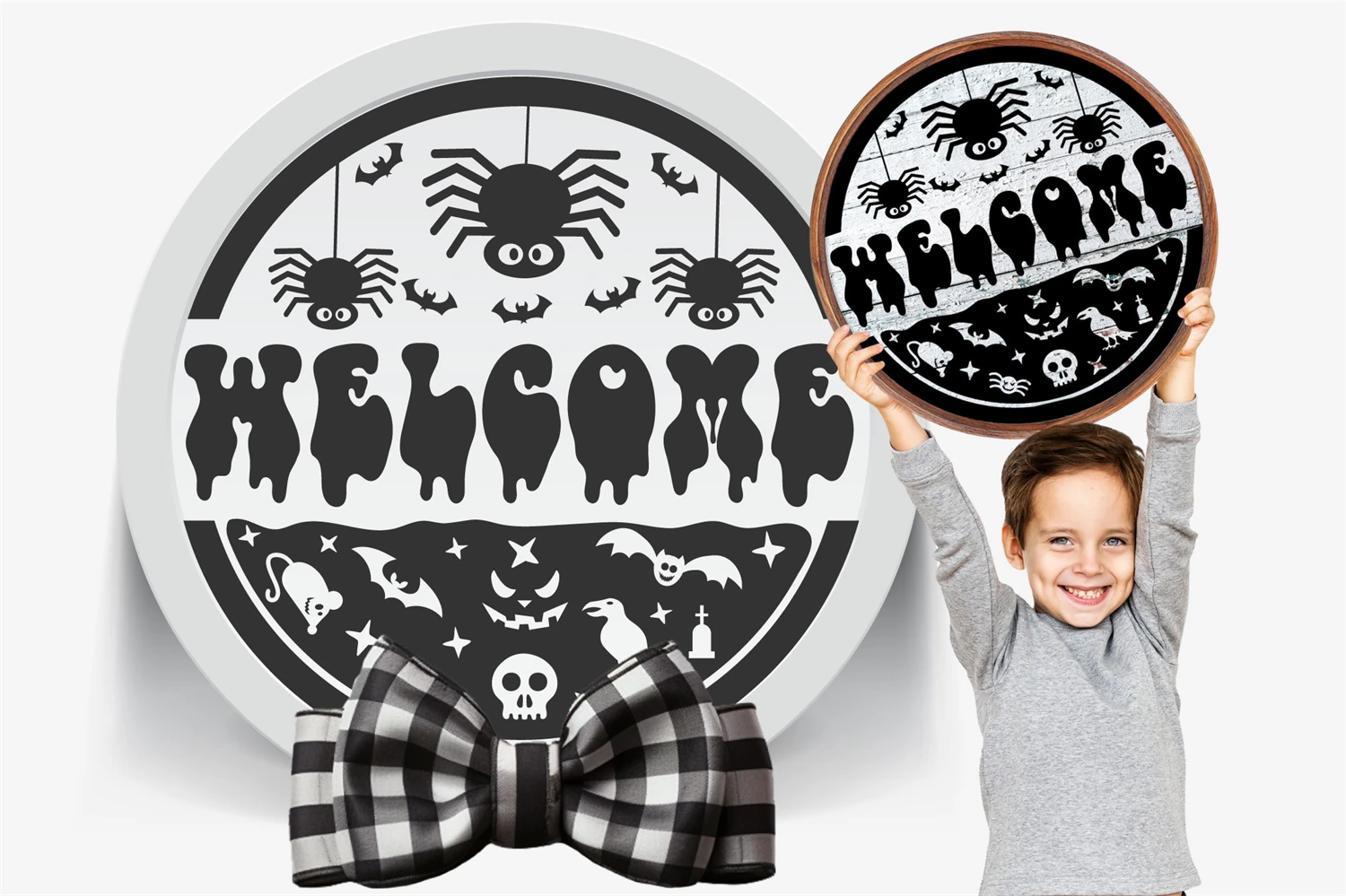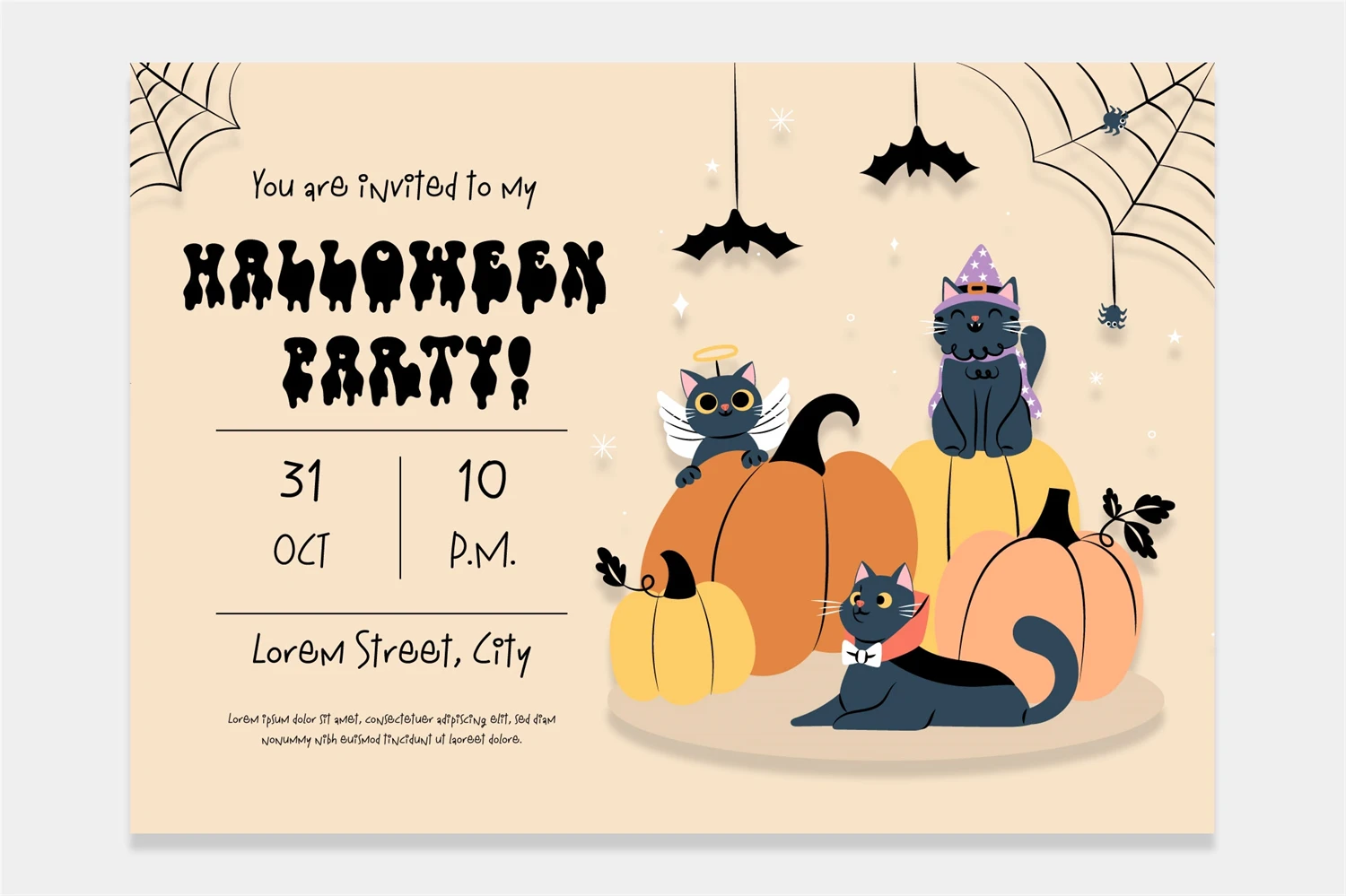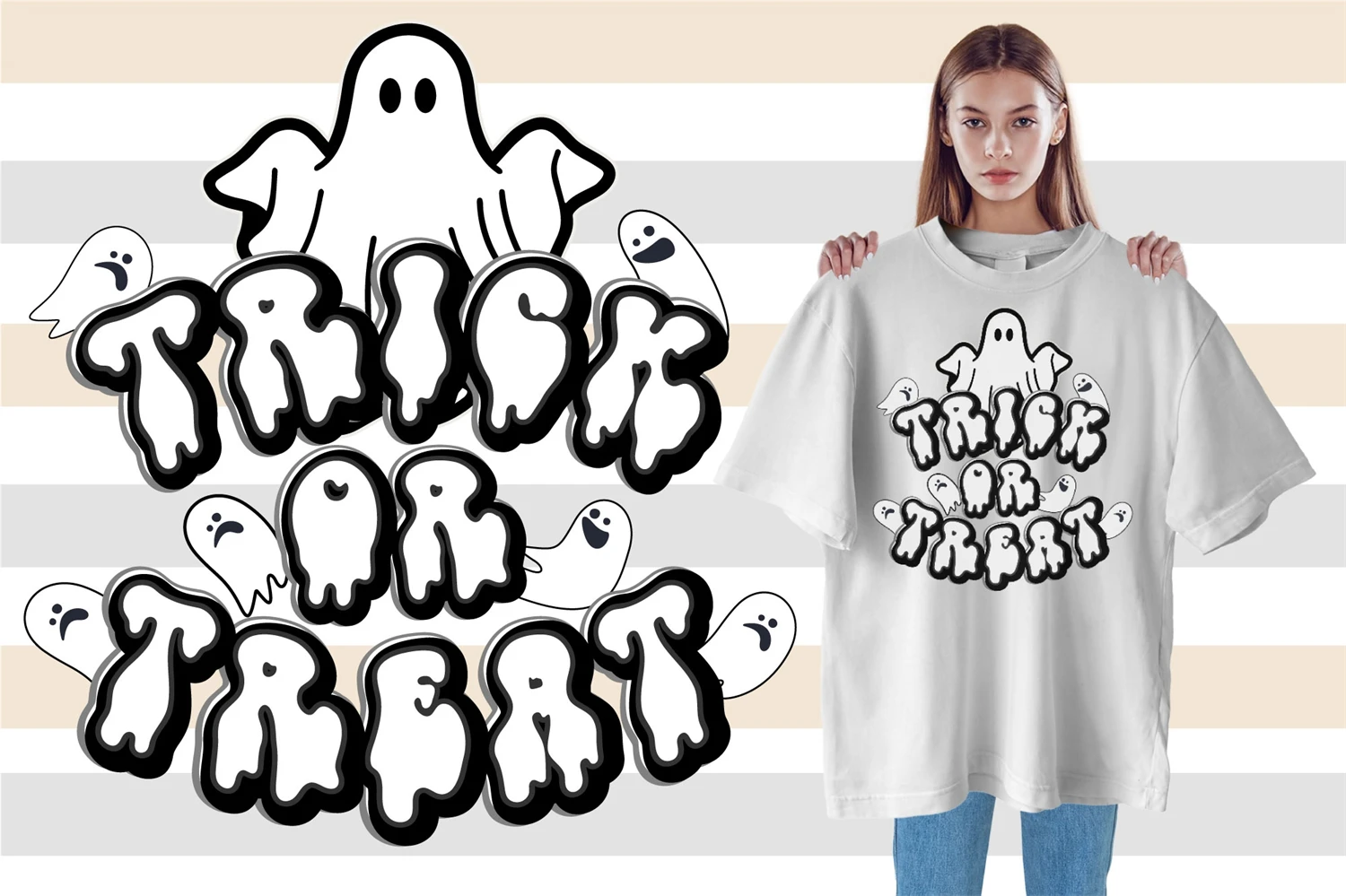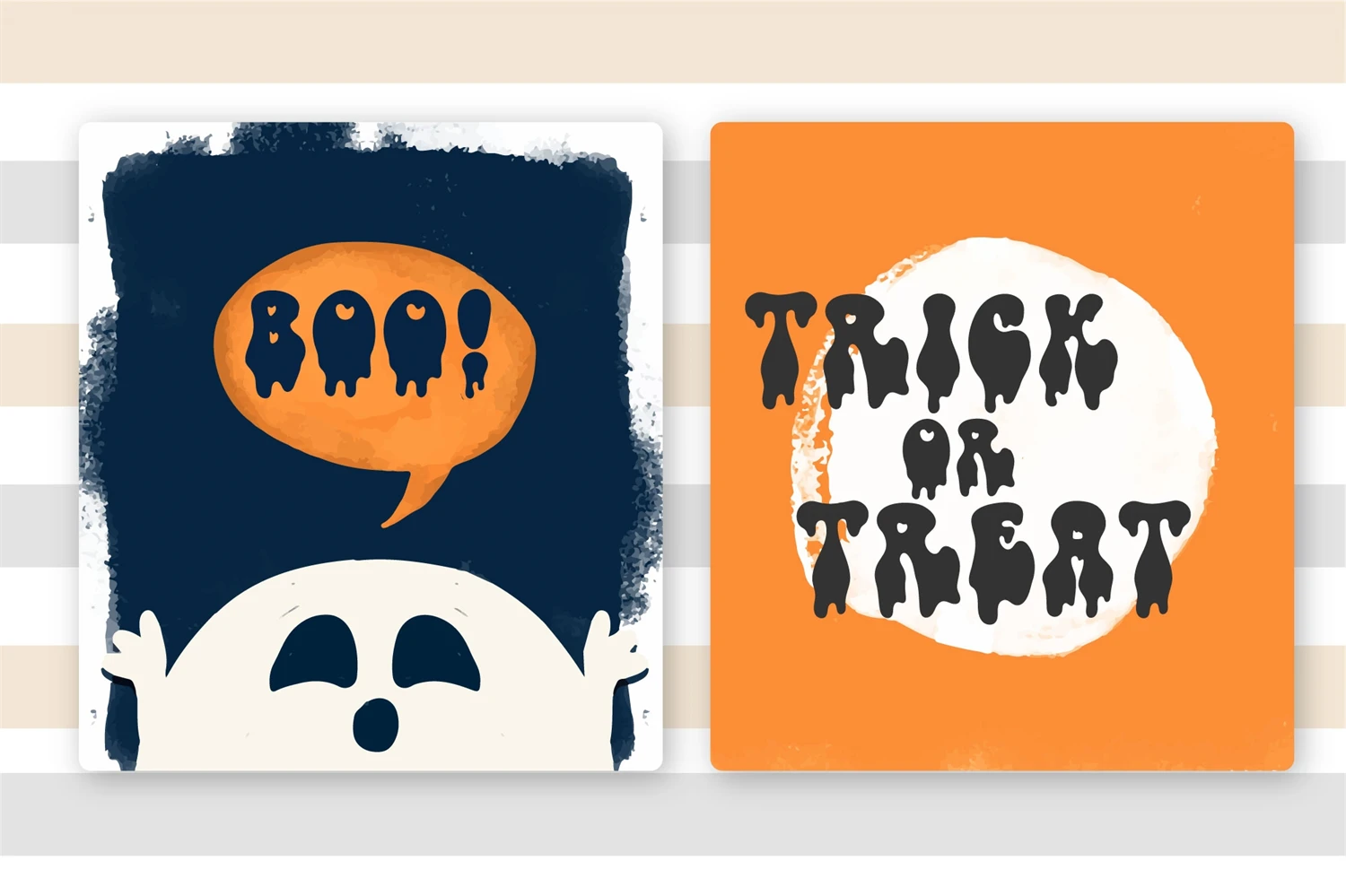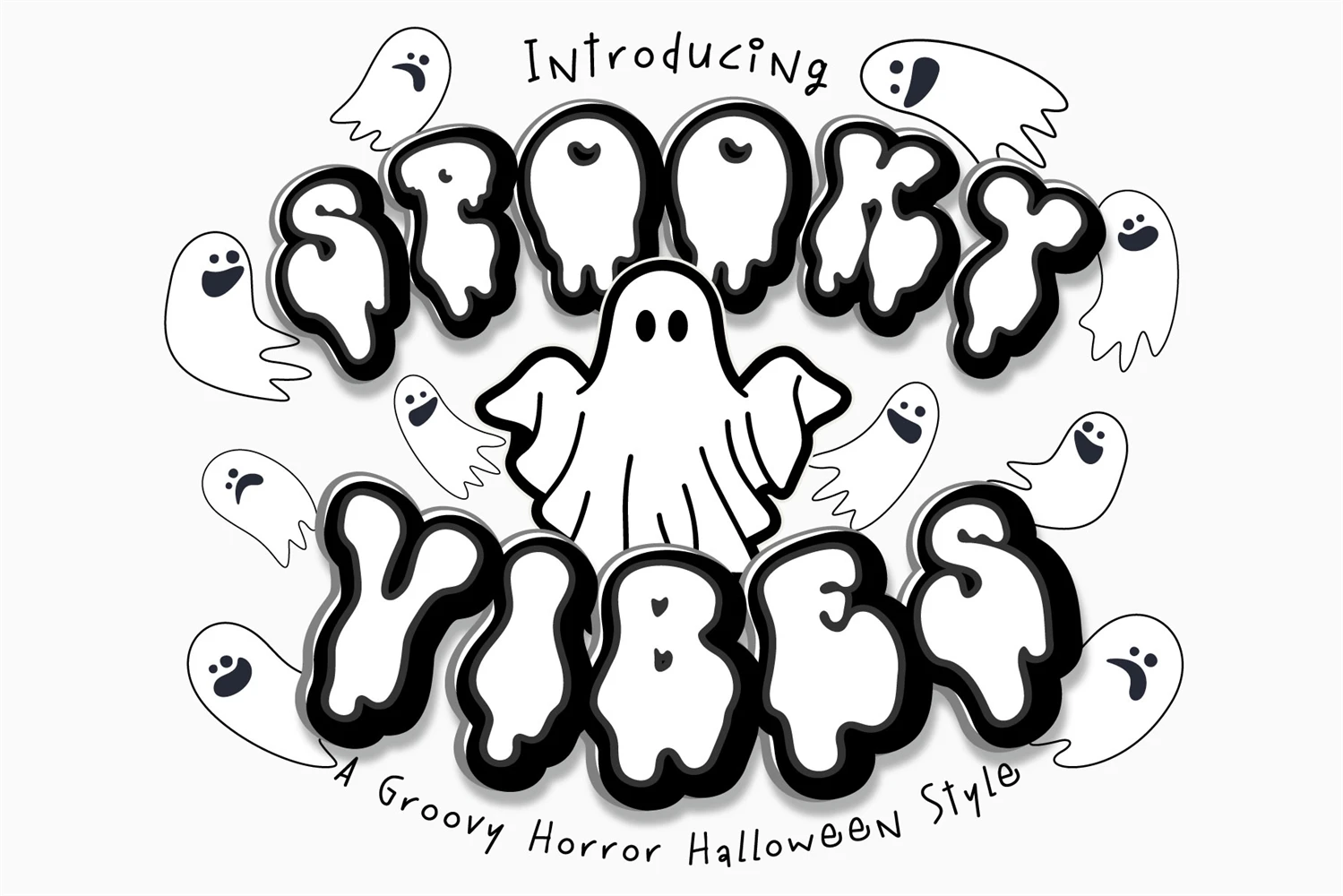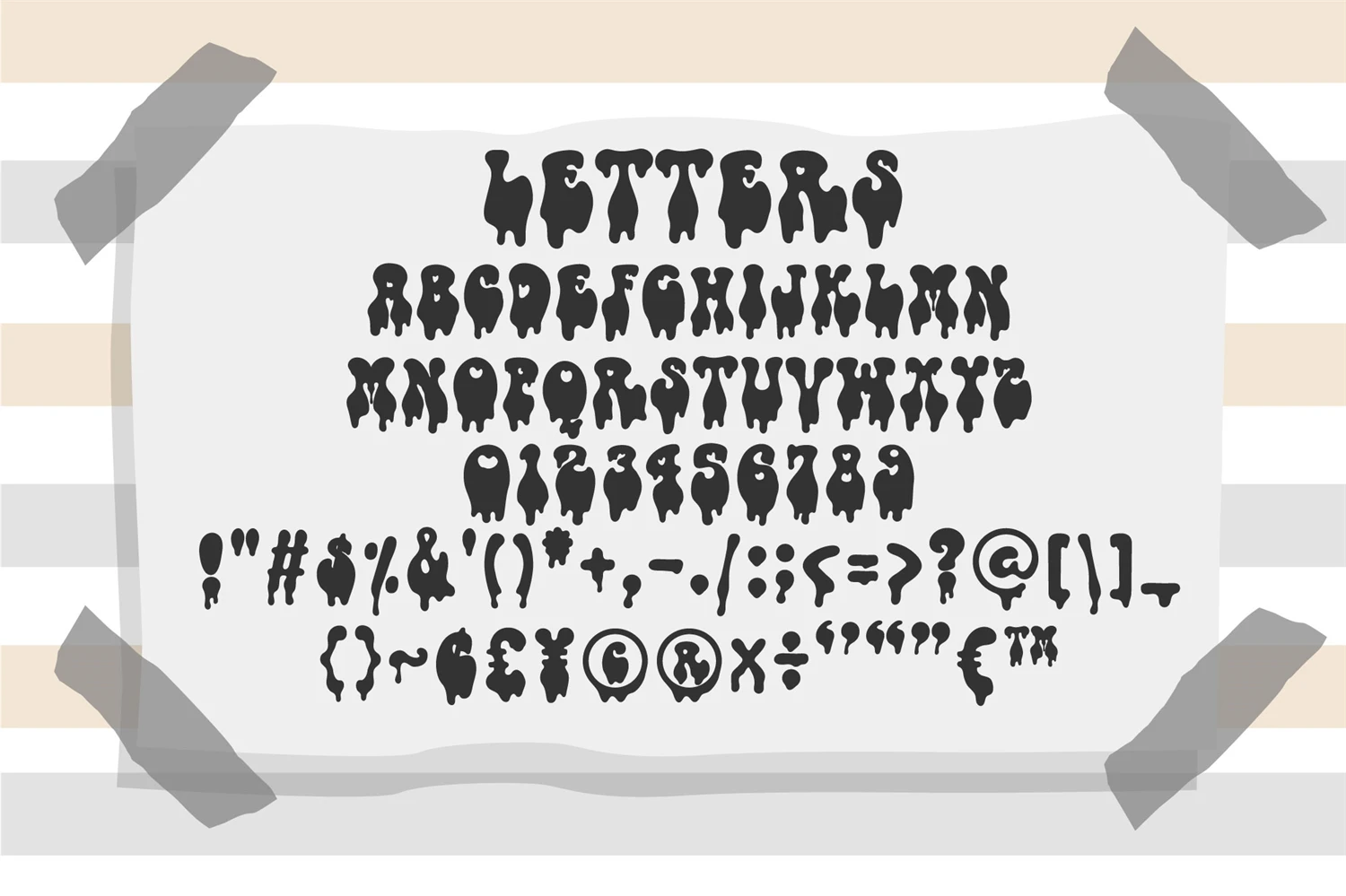
Spooky Vibes is a charming and groovy Halloween display font. Infuse your designs with playful retro spirit and delightful spookiness. Perfect for invitations, posters, and more, this font adds a captivating twist to your Halloween creations. Unleash your creativity with Spooky Vibes today!